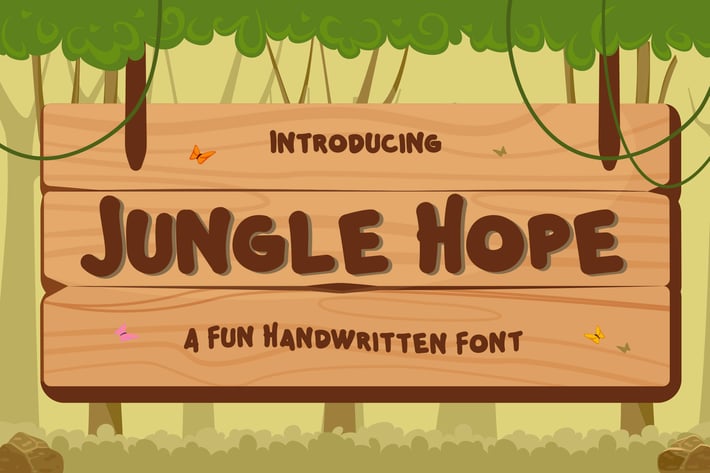
Jungle Hope – Fun Handwritten Font
Jungle Hope is a fun display font with adorable feel. Suited for children book with an animal theme, children storybook, or playground.
Also whether you’re using it for crafting, digital designing, presentations or greeting cards making, gift card, birthday invitations, it’s perfect!
– Small Caps
– Alternates
– Ligature
– Multilingual Support